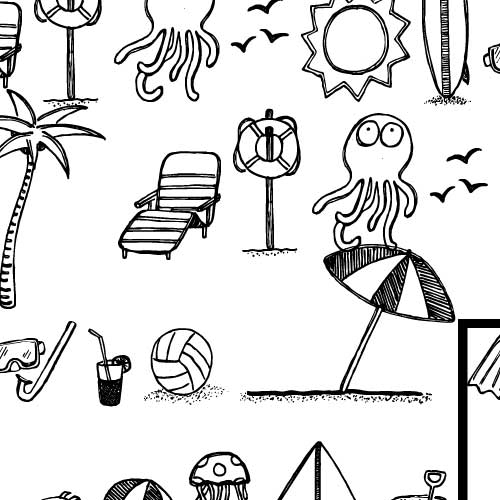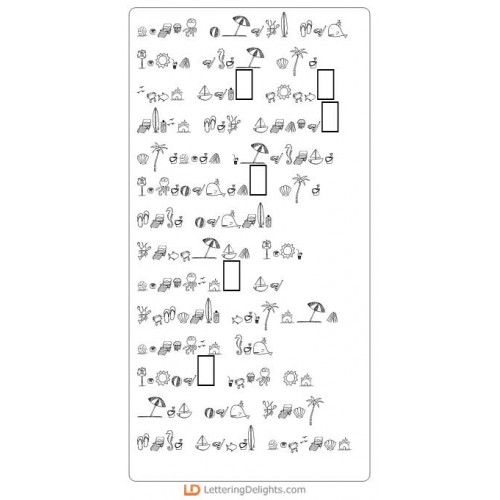
DB Beach Doodles - DB
Capture your favorite beach moments with DoodleBat Beach Doodles. Remember the fun vacation and playing in the ocean with these fun DoodleBats.